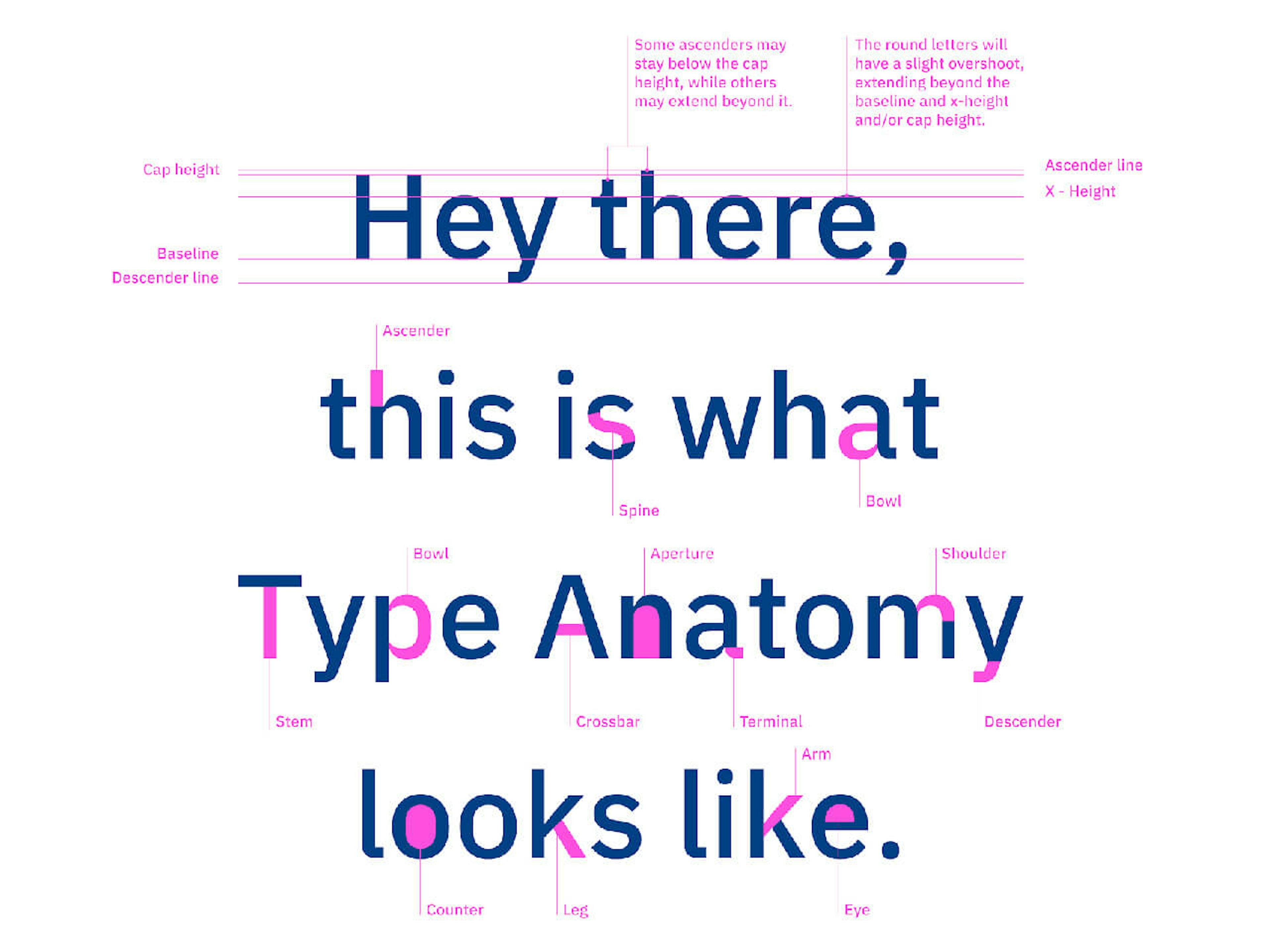
Typography 101: The Basics & Some of Our Favorite Fonts
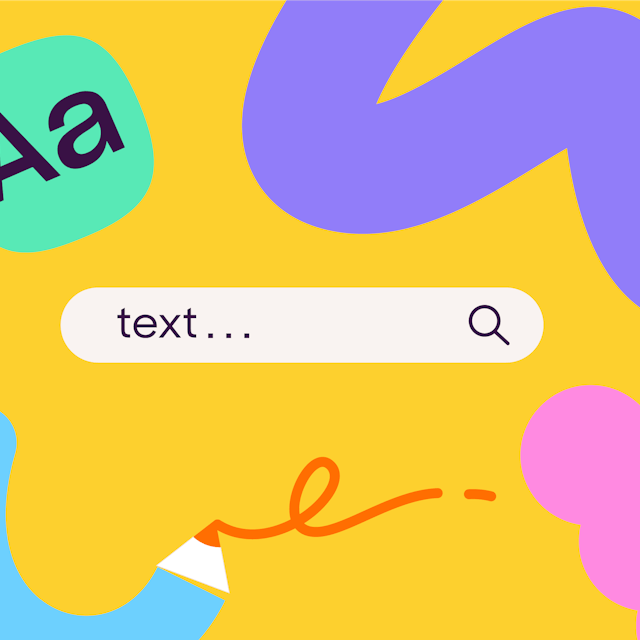
As one of the primary methods of communication, we digest written words on a daily basis. Whether it is on the phone, websites, the shop fronts, or the newspaper, the type is there. We automatically reflect on the written words that we do not consider what role does design play in giving the text a tone or a voice.
Behind the scenes, designers have to mull over the relationship between how the text looks and it is meaning. This is because the type choice can set the mood, atmosphere, and emotions of the text. In this article about typography 101, we will lift the lid and let you take a peek at everything that you must know about typography and how it can impact your brand.
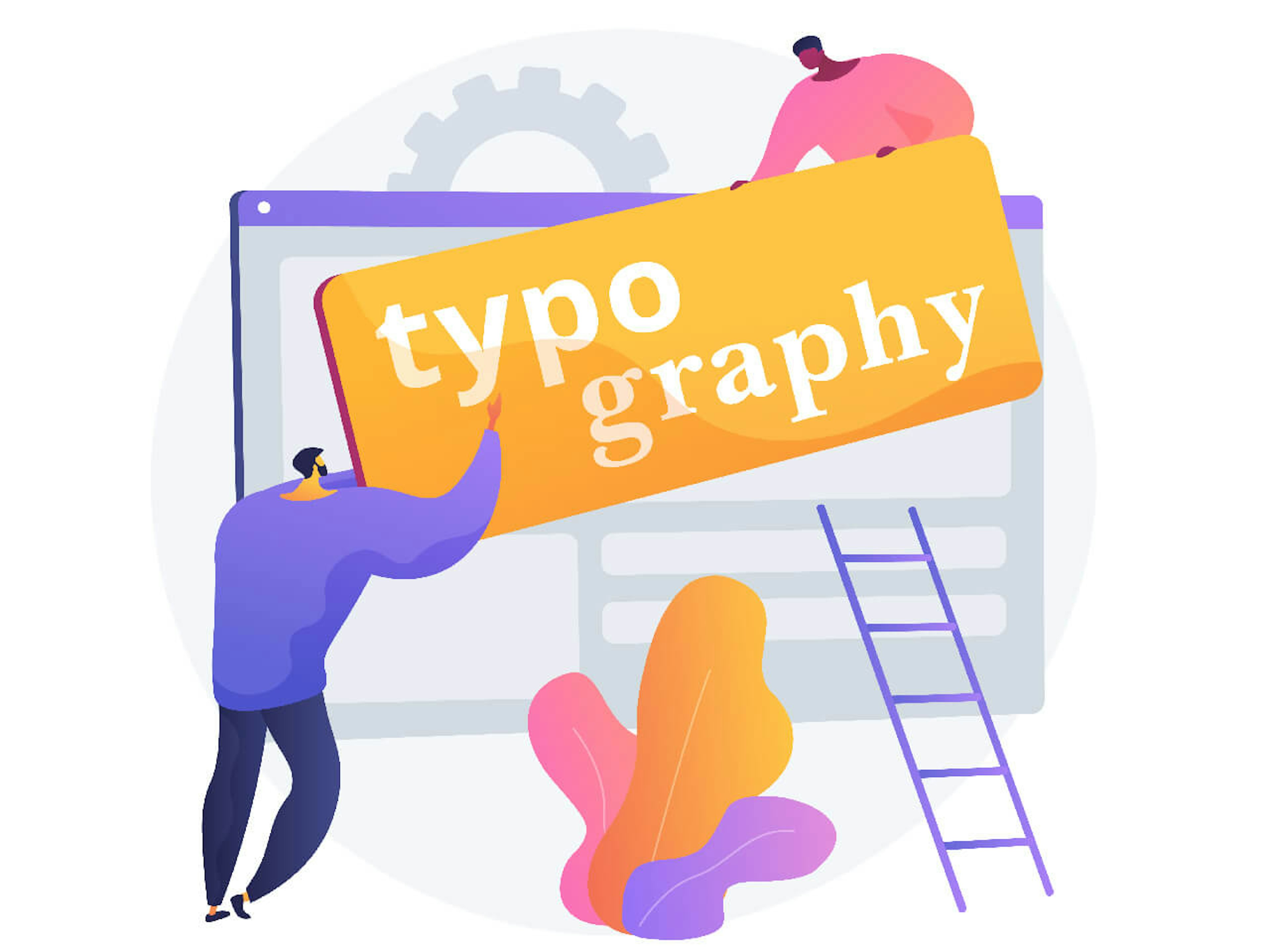
What is Typography?
Kicking off the basics first on this typography 101, you need to be aware of what typography is.
In a nutshell, it is the process of letter arrangement including texts so to come up with a clear, legible, and visually appealing copy. It involves choosing the appropriate font style, appearance, and structure where the goal is to be able to convey a specific message and elicit a proper emotion. Typography brings the text to life as it makes the words easy to read, engaging, and look suitable to the rest of the design.
Typography can be considered as art by itself and is an important skill that every graphic and web designer has to master. It is central to any kind of design whether it be in print or digital form. More than communicating a certain tone and sentiment of a design, typography also promotes legibility. With regards to graphic design, typography completes the process of having a visually-appealing design that is both neat and easy to look at. Using typography effectively avoids straining the eyes which is important if you want appreciation from the audience.
Why typography is important?
Knowing why it is essential is also a basic in typography 101, so with no further ado, here’s why typography is a great tool in making any design look irresistible:
It builds brand recognition
Good typography typically enhances the design’s personality. When incorporating it into a design, people can create associations with your brand. They begin to recognize the consistent use of typography style thus establishing a strong user following. This would further progress into building trust and will be a good foundation for bringing your brand forward.
It influences decision-making
As the audience can digest and perceive the correct information that is conveyed by a text, typography creates a profound effect that goes beyond aesthetics. It reinforces the meaning of the written words thereby making them more persuasive.
It holds attention
Eye-catching typography could be a key to making a user focus on the rest of the design. This means that you can hold attention enough to make a lasting impression. With good typography, you can make a visually-appealing design that is also memorable.
Typography is all-over! From table napkins, to books, to order boxes, coffee cups, to menus, banners, posters, billboards, it’s everywhere. Even if it seems trivial, a little adjustment makes a big difference to the impact that the design delivers.
Typography plays a huge role in branding and marketing. From giving out product information down to the packaging, your choice of typography can make or break your brand identity. In essence, typography is an essential ingredient that completes the brand identity that you need to establish.
More than an accessory to complement a design, however, typography can be the brand itself. This is why you have to hit all the marks if you want to have effective typography in your design.
How to Use Typography Effectively
Humans are naturally drawn to visually attractive designs. This goes without saying that people tend to favor an aesthetic, clean, and easy to read text over one that looks busy and straining to read.
Check out below the different fundamental concepts that have to be considered when deciding on typography for design:
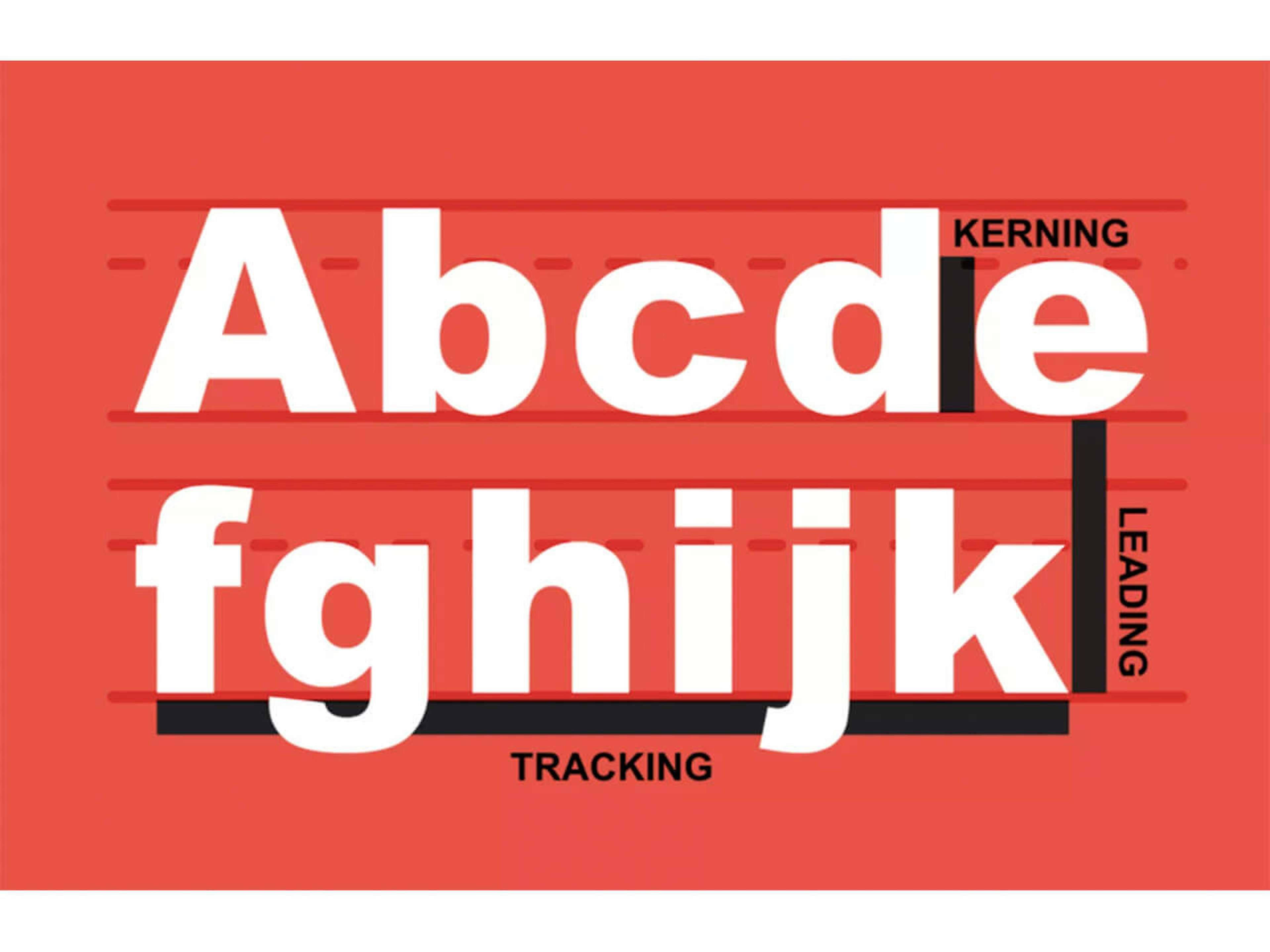
1. Typeface
A typeface is a design style or a family of fonts that consists of many characters in different sizes and weights. It is like a group of related fonts, such as Helvetica, Proxima Nova, Times New Roman, and Arial.
2. Font
Contrary to what most people assume, typeface and fonts are not interchangeable. A font is a variety of a typeface. The typeface Proxima Nova, for example, has Proxima Nova Light Italic, Proxima Nova Medium Italic, Proxima Nova Bold, Proxima Nova Black, Proxima Nova Regular, and Proxima Nova Semibold Italic as its fonts.
Font Anatomy
A lesson in typography 101 is not complete unless you know about font anatomy. Knowing the different parts of a font is crucial to a designer because it will serve as a guide in choosing the best fonts for a specific project or goal. The font has a letterform or the shape of a letter. It also has a baseline or an imaginary line where fonts sit and where descenders extend. The next component is the stroke which can either be a straight line segment or a curved/rounded line that follows the letterform. Finally, you have the stem or the main stroke of the character that is not constrained with any upright segments.
Typography is both a skill and art that you need to practice and spend time mastering. By understanding the different principles of typography and through practice, there is no reason why you will not be able to develop a good eye for it. This would result in improving your decision-making skills when it comes to making strategic design choices.